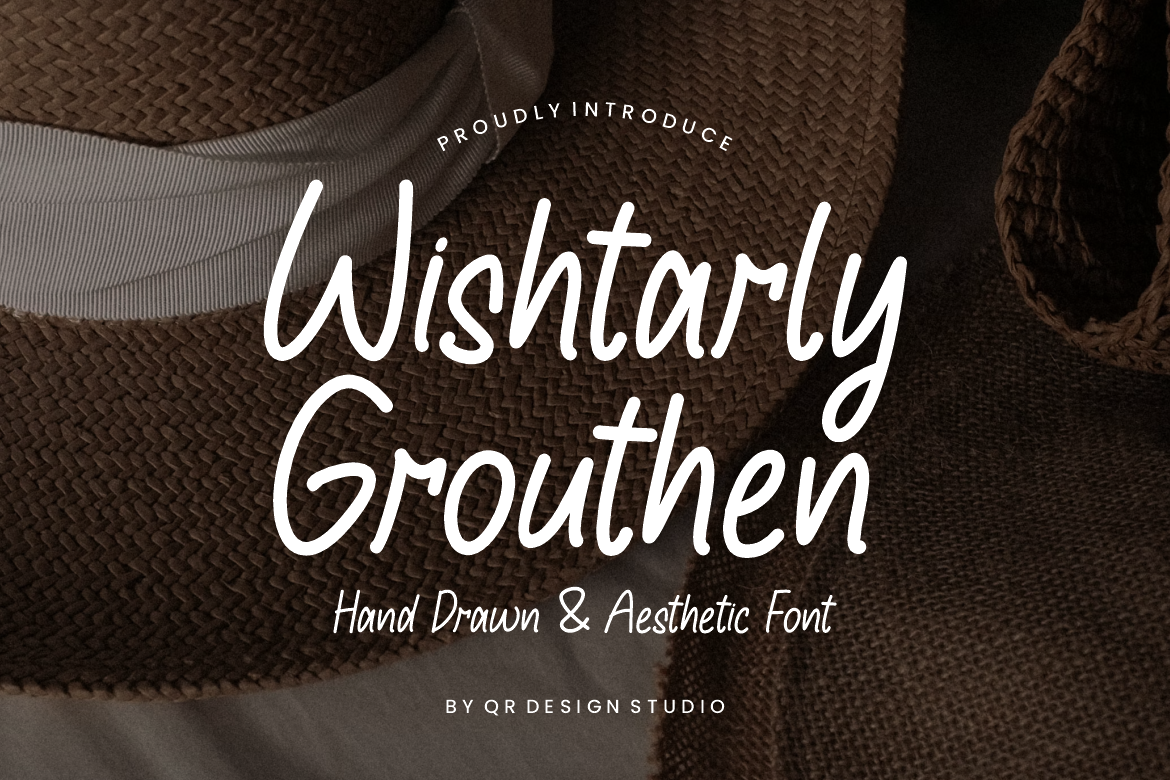
Wishtarly Grouthen Font
Wishtarly Grouthen Font is a hand drawn and authentic display font. The font is suitable for any branding project like poster, logo, sport, and many more. Outstanding in a wide range of contexts.